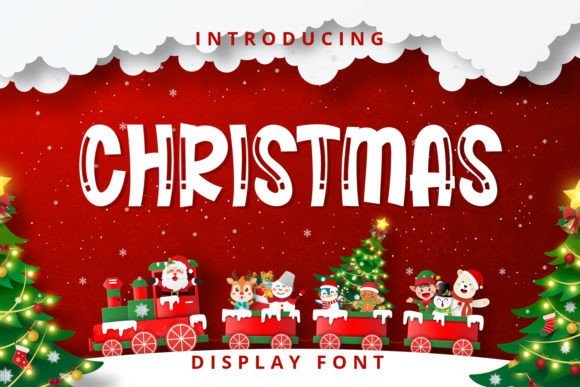
The Magic of Christmas Font
As a designer, there’s nothing quite like the feeling of finding the perfect font to bring a project to life. It’s like stumbling upon a treasure chest filled with glittering ideas and endless possibilities. And for those of us who love creating festive designs, the discovery of Christmas Font is like unwrapping a gift on a cold winter’s morning.
Christmas Font is a delightful, fun, and cute display font that’s perfect for children-themed designs. Its bright and cheerful vibe makes it a great addition to logos, quotes, T-shirts, greeting cards, business cards, and more. Whether you’re designing for a kids’ clothing brand or a holiday-themed event, Christmas Font is sure to add a touch of magic to your creations.
Christmas Font Key Features
- Font Family: A collection of festive font styles, including bold, italic, and regular weights.
- Size: The font comes in multiple sizes, ranging from 8 to 72 points, making it suitable for various design applications.
- Resolution: Supports high-resolution displays, including Retina and 4K resolutions, ensuring crisp and clear typography.
- Unique Characteristics: Features a range of Christmas-themed glyphs, including ornaments, snowflakes, and holly leaves, adding a touch of festive flair to designs.
- Language Support: Supports a wide range of languages, including English, Spanish, French, German, and many more, making it a versatile font for global designs.
Christmas Font Review
I recently had the chance to work with the “Christmas Font” and I must say it’s a mixed bag. Here are my thoughts.
- The font is super festive and perfect for holiday-themed projects.
- The characters are well-designed and include a range of fun symbols like snowflakes and presents.
- The font is highly customizable, allowing you to adjust the size, color, and spacing to your heart’s content.
- The font is a bit over-the-top for more subdued holiday designs.
- The characters can be a bit too elaborate, making them difficult to read in certain contexts.
- The font doesn’t include a complete character set, which can be a problem if you need to use it for body text.
While the “Christmas Font” is perfect for super festive projects, it’s not the best choice for more subtle holiday designs. With a bit of restraint, however, it can add a lot of fun and personality to your projects.
Use Christmas Font in conjunction with festive graphics and colors to create a cohesive design.
Experiment with different font sizes and styles to add visual interest.
Consider using Christmas Font in combination with other fonts to create a unique and eye-catching design.
Christmas Font is perfect for:
Creating holiday cards and invitations
Designing festive posters and flyers
Adding a touch of holiday cheer to social media graphics and ads
Creating a cohesive brand identity for holiday marketing campaigns